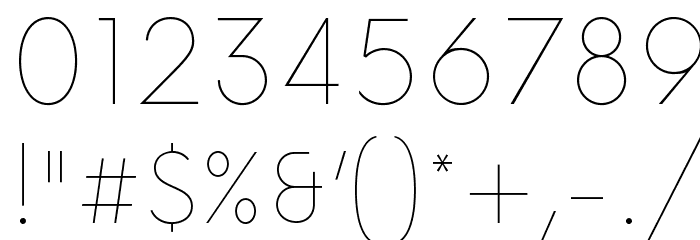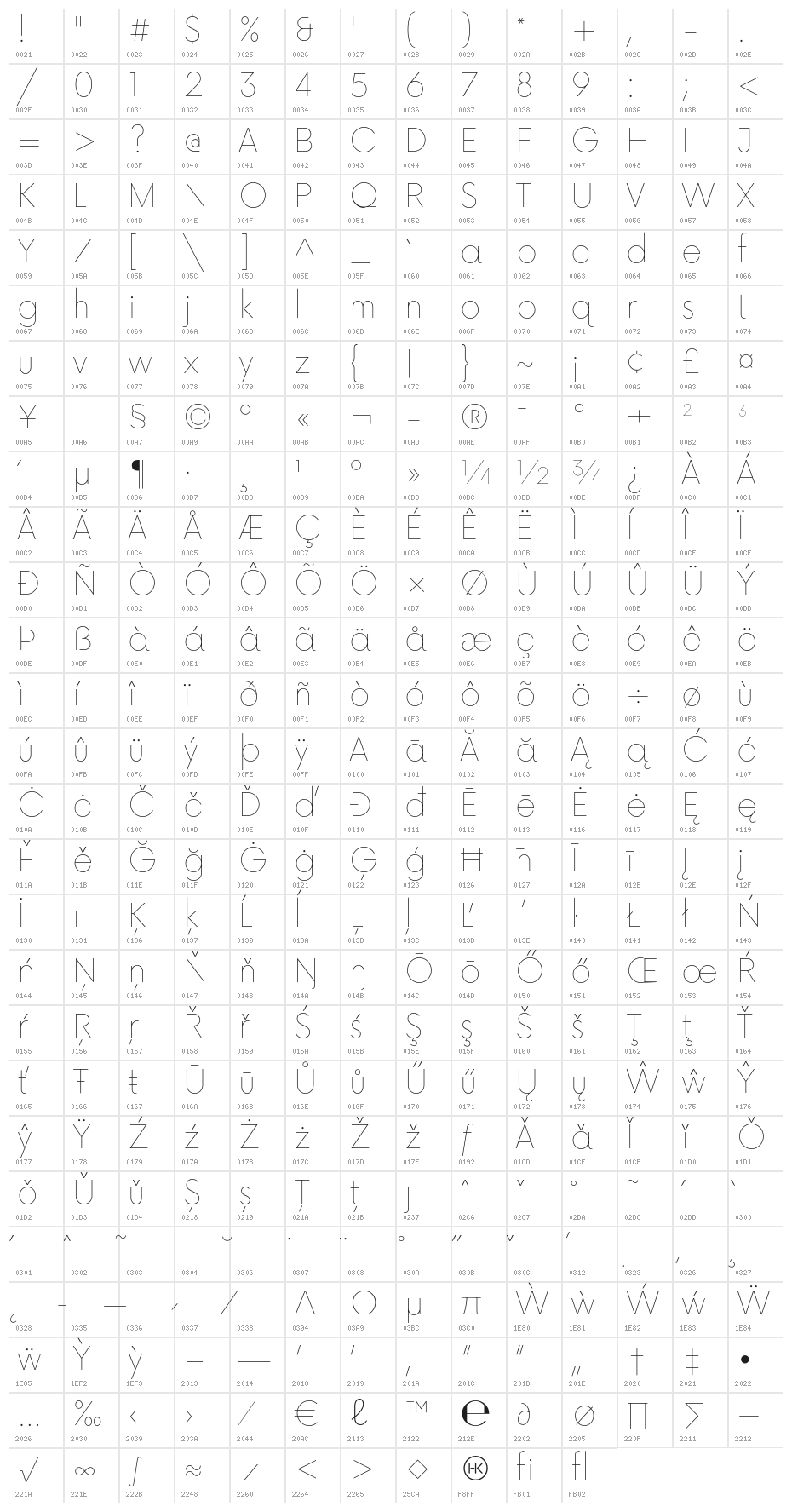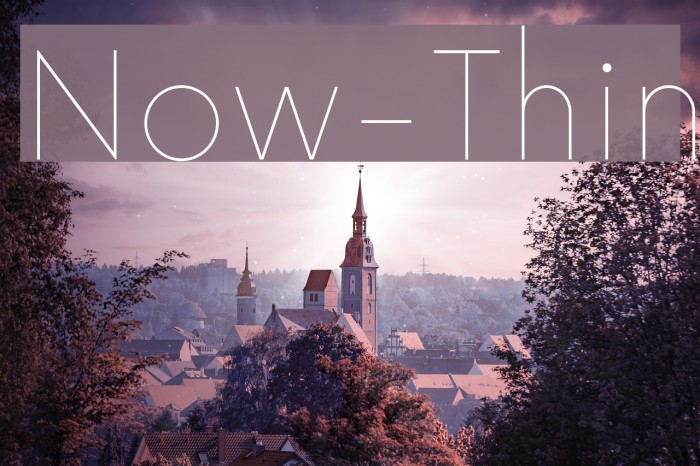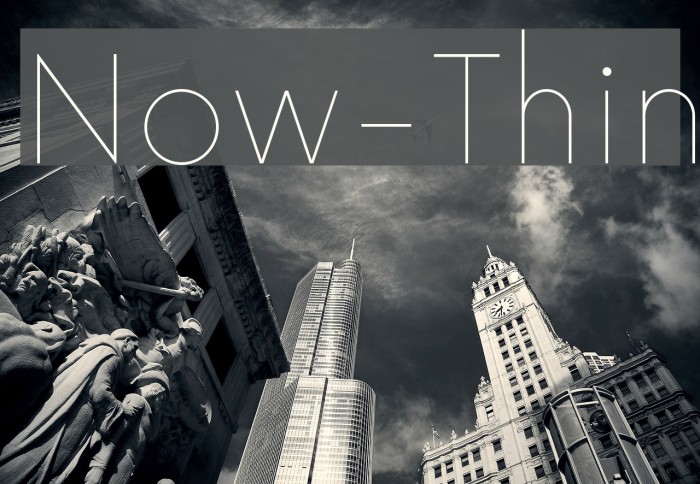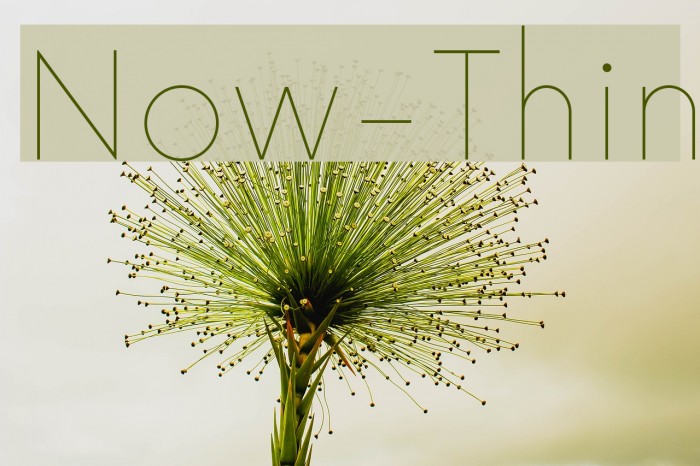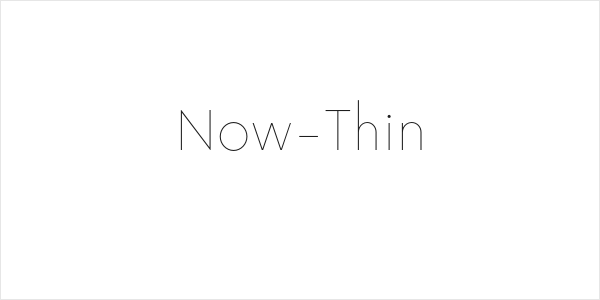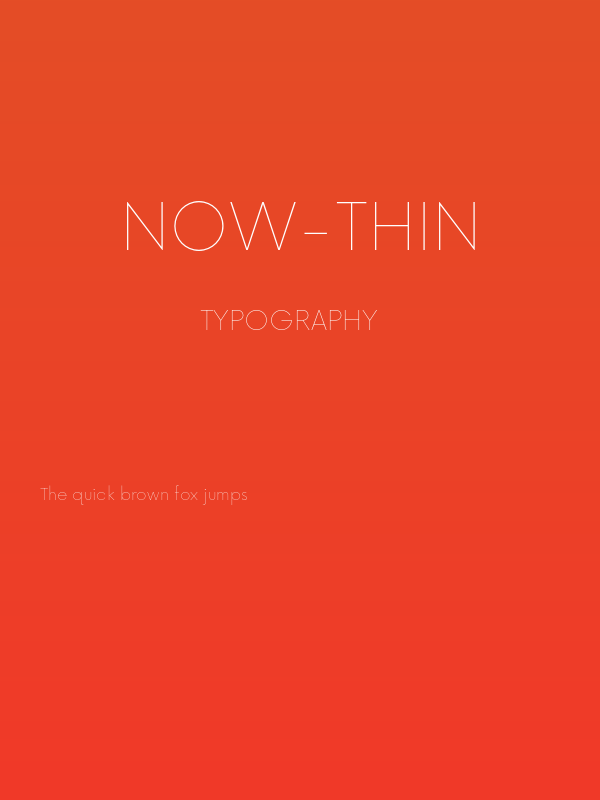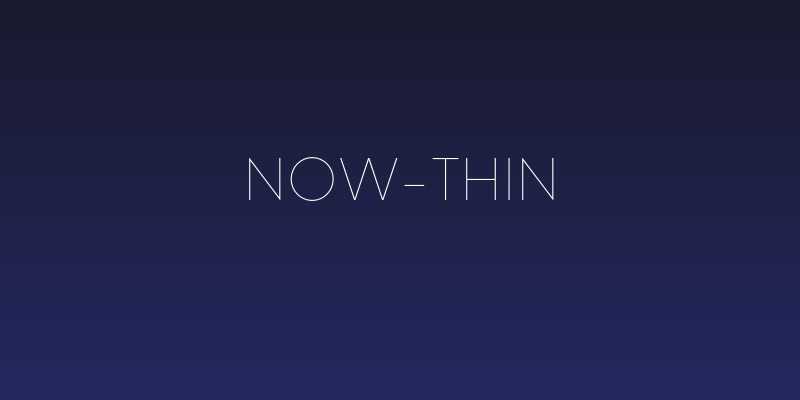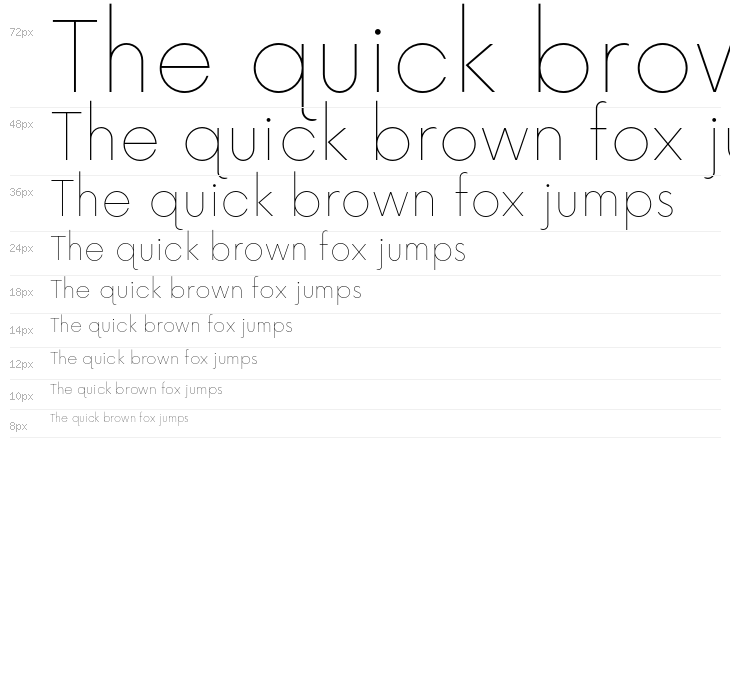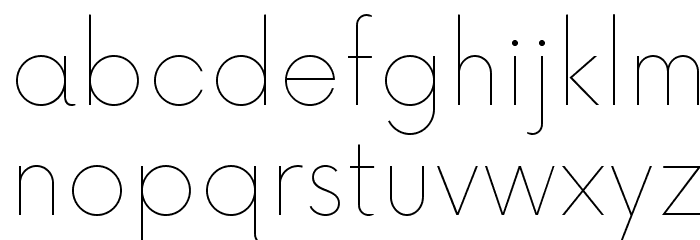
Now-Thin Font
Now-Thin Description
This font features a sleek and minimalist design, characterized by its thin, clean lines and modern aesthetic. The characters are evenly spaced, providing a sense of balance and clarity. The uppercase and lowercase letters maintain a consistent style, with rounded edges and a geometric structure that enhances readability. The numerals and special characters are crafted with the same attention to detail, ensuring uniformity across all elements. This font's simplicity and elegance make it suitable for a wide range of design applications.